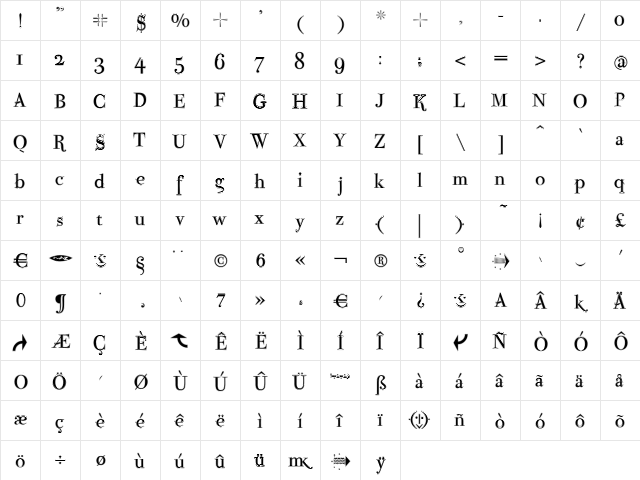
ParmaPetitOutline Regular
Design Context for ParmaPetitOutline Typeface
ParmaPetitOutline is built around its visual character rather than neutral utility — its distinctive forms are designed to make an impression at display sizes.
Font Pairing: Pair with a clean neutral sans-serif for body copy to let ParmaPetitOutline's character lead without overwhelming the composition.
Pro Tip: Treat ParmaPetitOutline as the centrepiece of your typographic hierarchy. One strong heading set in a decorative face can carry an entire layout.